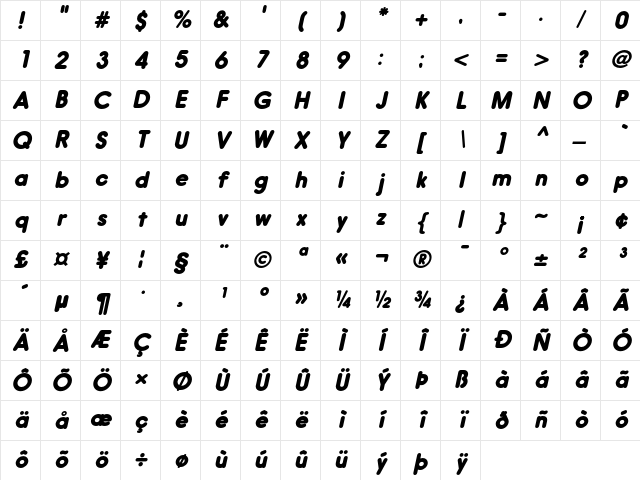
Hiruko Pro Black Oblique
Style: Black Oblique
Foundry: Thinkdust
Designer: Alex Haigh
Design Context for Hiruko Pro
Hiruko Pro is a composed and adaptable typeface that performs quietly and consistently across a wide range of design contexts. The slanted form adds forward momentum and visual energy.